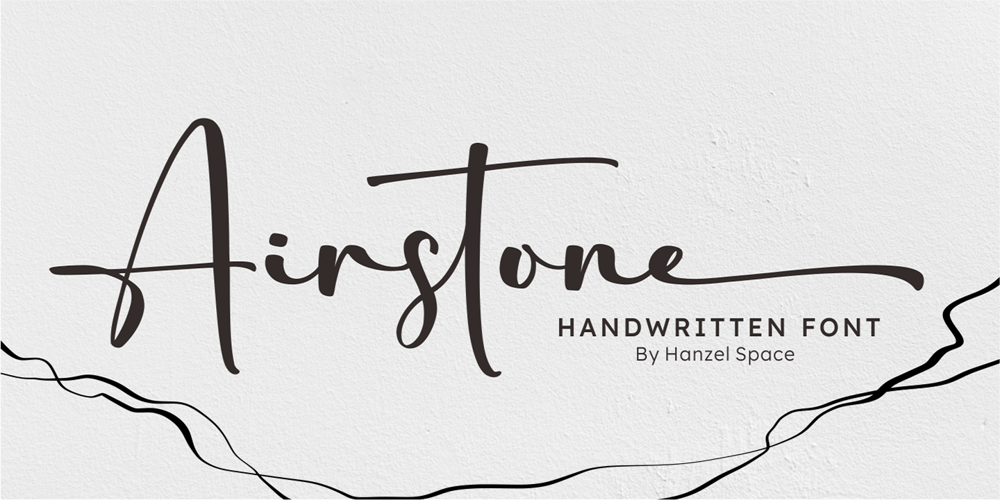
Airstone Font Family was designed by Hanief Farandi and published by Hanzel Space. Airstone contains 1 styles and family package options. Airstone | Handwritten Font, every single letters have been carefully crafted to make your text looks beautiful. With modern script style this font will perfect for many different project ex: photography, watermark, quotes, blog header, poster, wedding, branding, logo, fashion, apparel, letter, invitation, stationery, book, etc. Full Set of standard alphabet and punctuation Extra set of beginning swashed lowercase Extra set of ending swashed lowercase Extra set of beginning swashed uppercase Handwritten ligatures Multilingual Characters (ÁÂÄÀÅÃÆÇÐÉÊËÈÍÎÏÌÑÓÔÖÒØÕÚÛÜÙẂŴẄẀÝŶŸỲ áâäàåãæçðéêëèíîïìñóôöòøõœúûüùẃŵẅẁýŷÿỳ€£¥) In order to use the beautiful swashes, you need a program that supports OpenType features such as Adobe Illustrator CS, Adobe Photoshop CC, Adobe Indesign and Corel Draw.